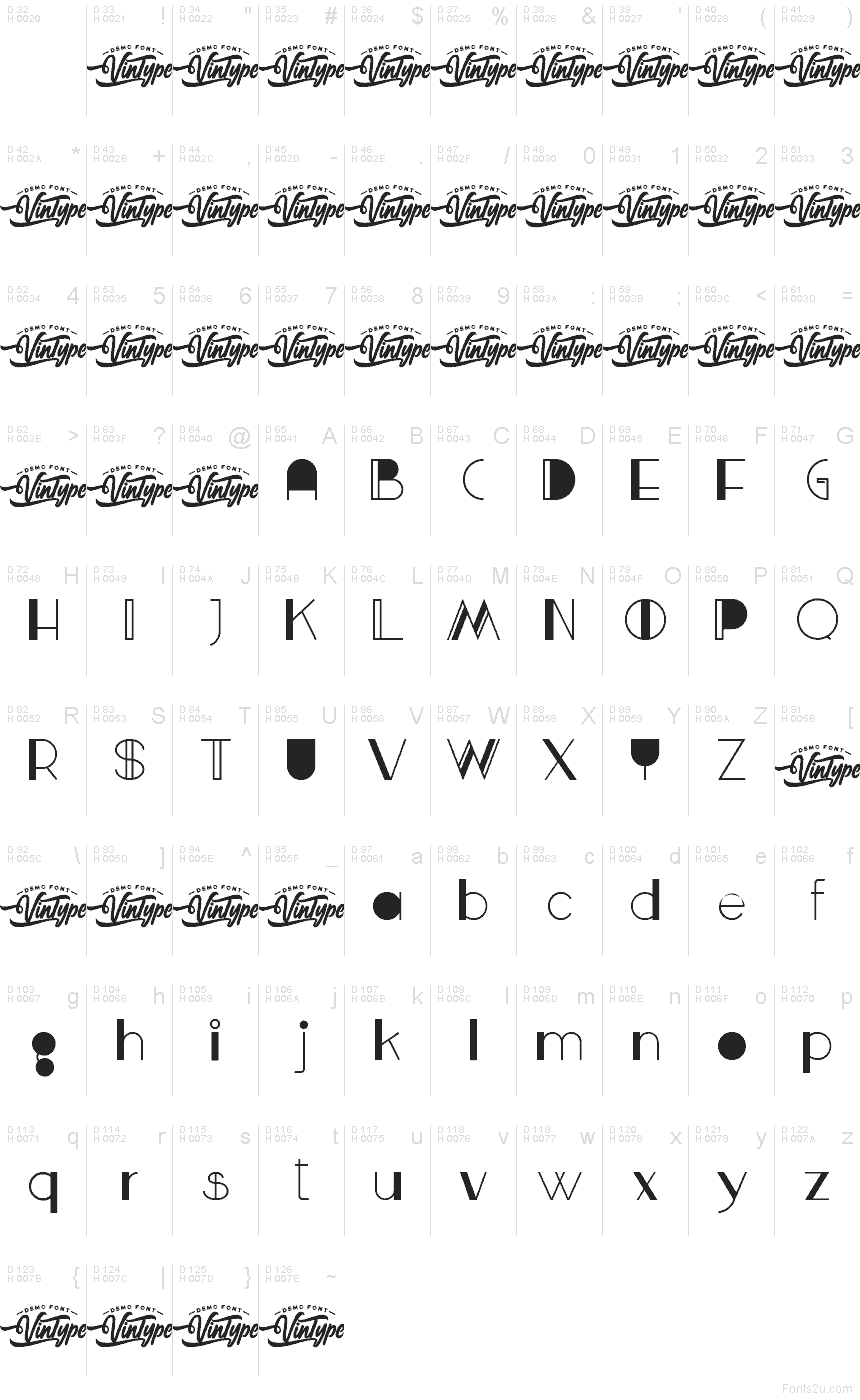
Black Rollaway font by VinType is a free retro display typeface. Its signature move is the interplay of knife-thin lines and bold, inky circles-those punchy round forms snap like spotlights against tall, elegant stems. Sharp diagonals and a sweeping y-tail add a jazzy, Art Deco pulse that feels both glamorous and a touch mischievous.
Using Black Rollaway, headlines lock in with a snappy rhythm that shines on posters, boutique logos, cocktail or lounge menus, cosmetics packaging, album covers, and event invitations. Set it big and give it a hair of extra tracking to let those circular forms breathe. This free font pairs naturally with a simple, modern sans for body copy to keep the spotlight where it belongs.